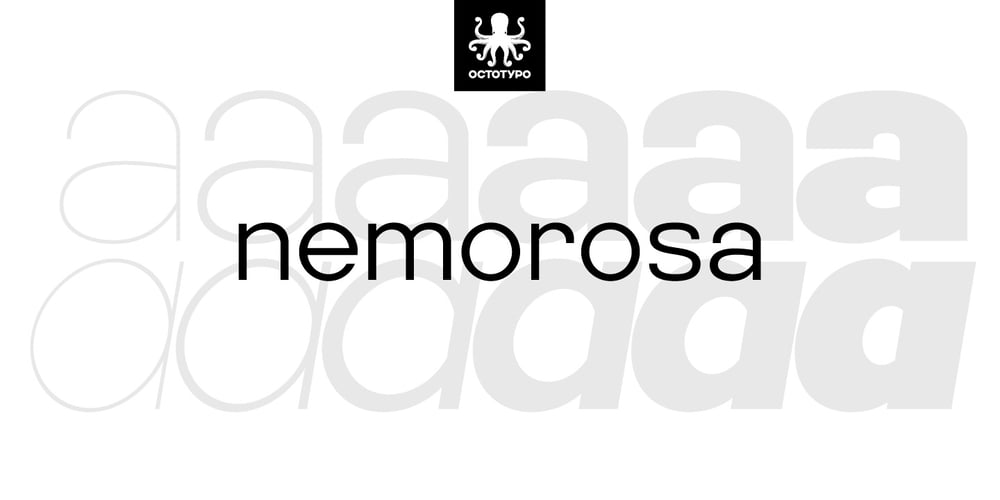
Nemorosa Font Family was designed by Julien Janiszewski and published by Octotypo. Nemorosa contains 12 styles and family package options. Nemorosa is a versatile font family.Its design has a retro sweet sixties feeling with a geometric touch. It comes in six weights and italics and a selection of alternates to mix-and-match and bring a different perspective to your texts and logos design.Perfectly suited for publishing and display use.